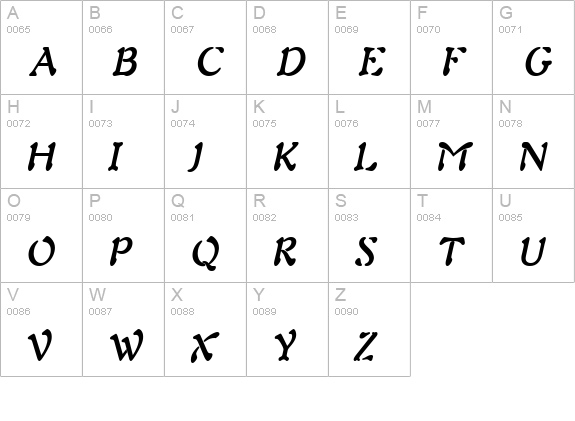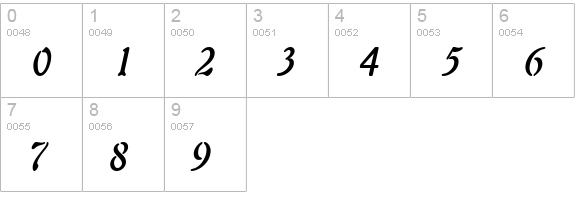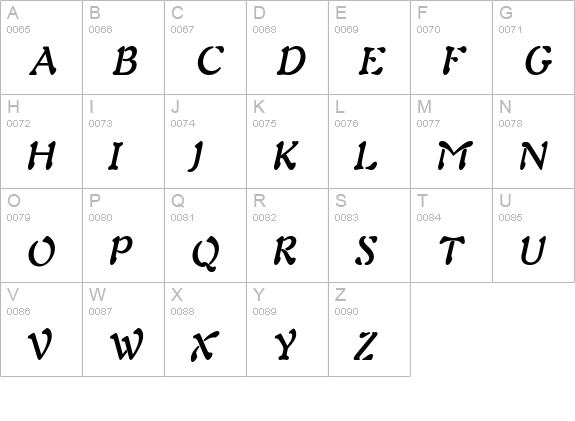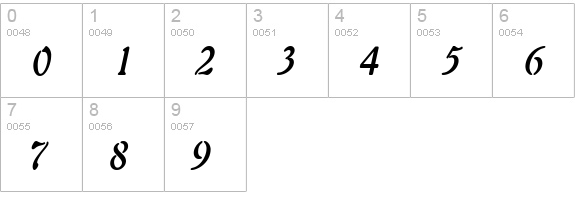
Freedom 9 Condensed BoldItalic is a distinctive, condensed-width variant in the Freedom typeface family \xE2\x80\x94 well suited to design and typography projects.
The Freedom 9 Condensed BoldItalic font exudes a sense of strength and individuality with its bold and italicized design. This striking typeface commands attention and adds a touch of sophistication to any project. The sleek condensed style of this font makes it perfect for headlines, titles, and other display purposes where you want to make a bold statement. What sets Freedom 9 Condensed BoldItalic font apart is its versatility and modern aesthetic. Whether you're designing a poster, logo, or website, this font will add a touch of flair and professionalism to your work. Its clean lines and distinct letterforms give off a sense of confidence and style. Best of all, Freedom 9 Condensed BoldItalic font is freely available to download at FontsMarket.com. This means you can easily access this high-quality font without any hassle. So go ahead and elevate your designs with the bold and expressive Freedom 9 Condensed BoldItalic font today!